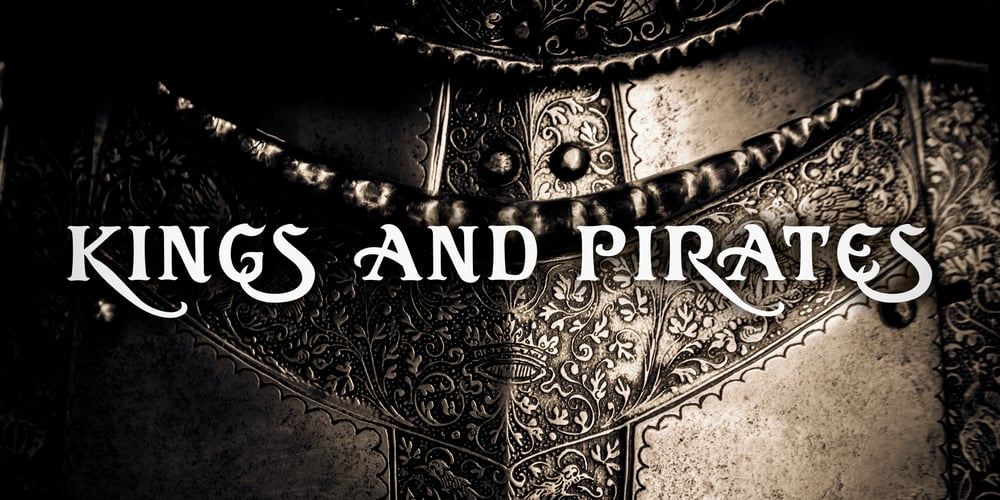
Kings and Pirates
Kings and Pirates font
Kings and Pirates Font Family was designed by Ioanna Ladopoulou and published by Joanna Vu. Kings and Pirates contains 1 styles and family package options. Kings and Pirates is a unique decorative font, guaranteed to make an impact. If you are looking for an elegant pirate flair to your project, Kings and Pirates is for you!Ideal for logos, banners, flyers, invitations, book covers… you name it. Imagination is the only limit!Supports most latin-derived languages, Greek and Cyrillic.